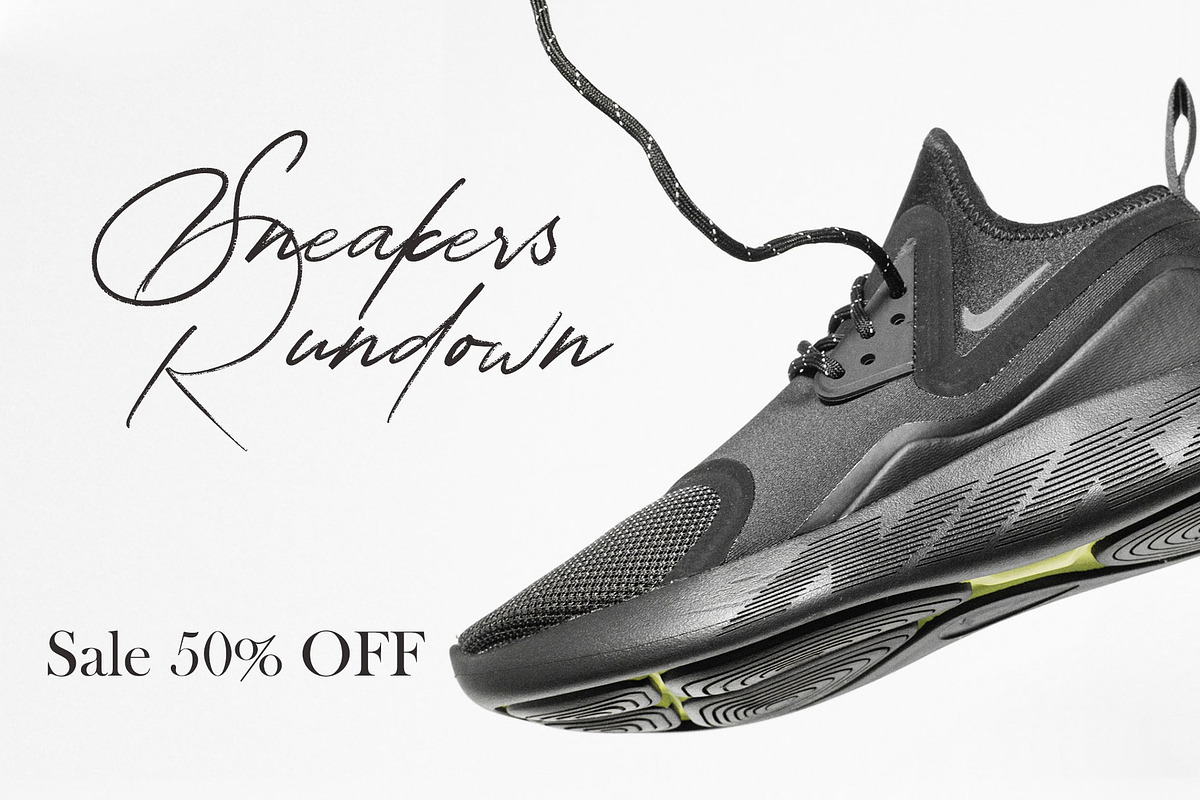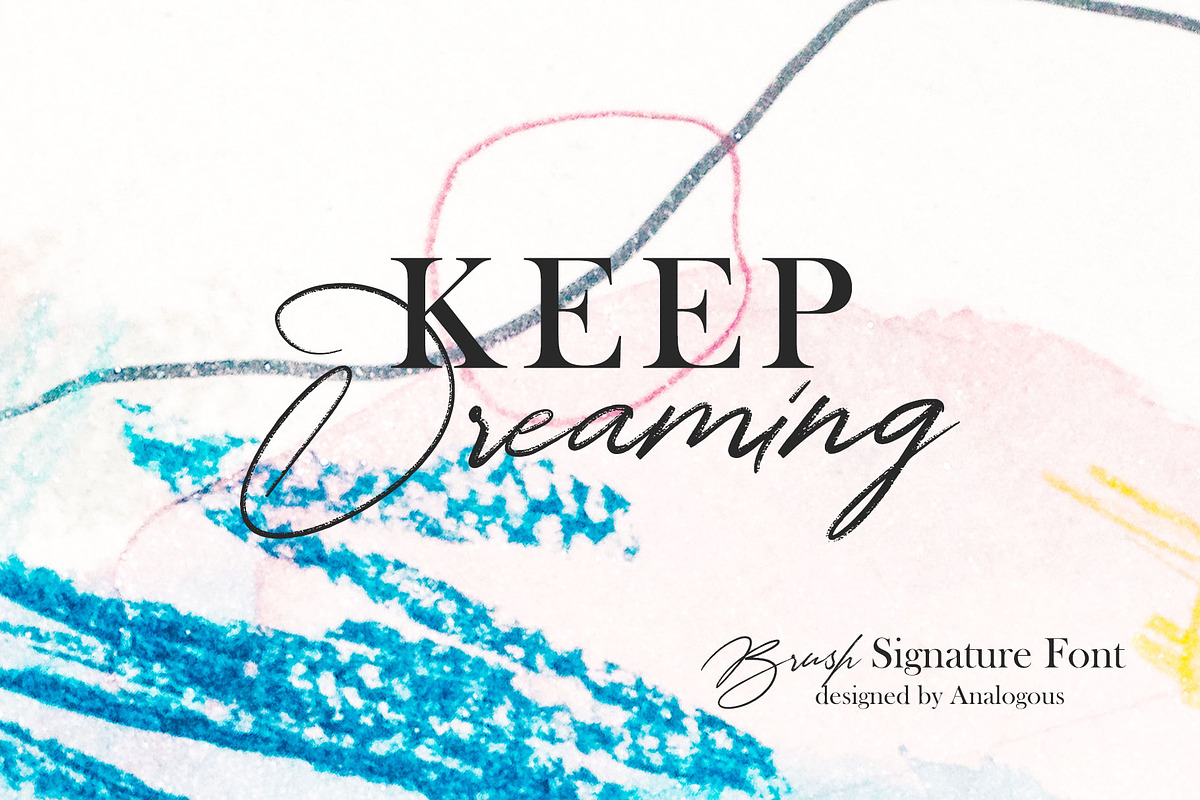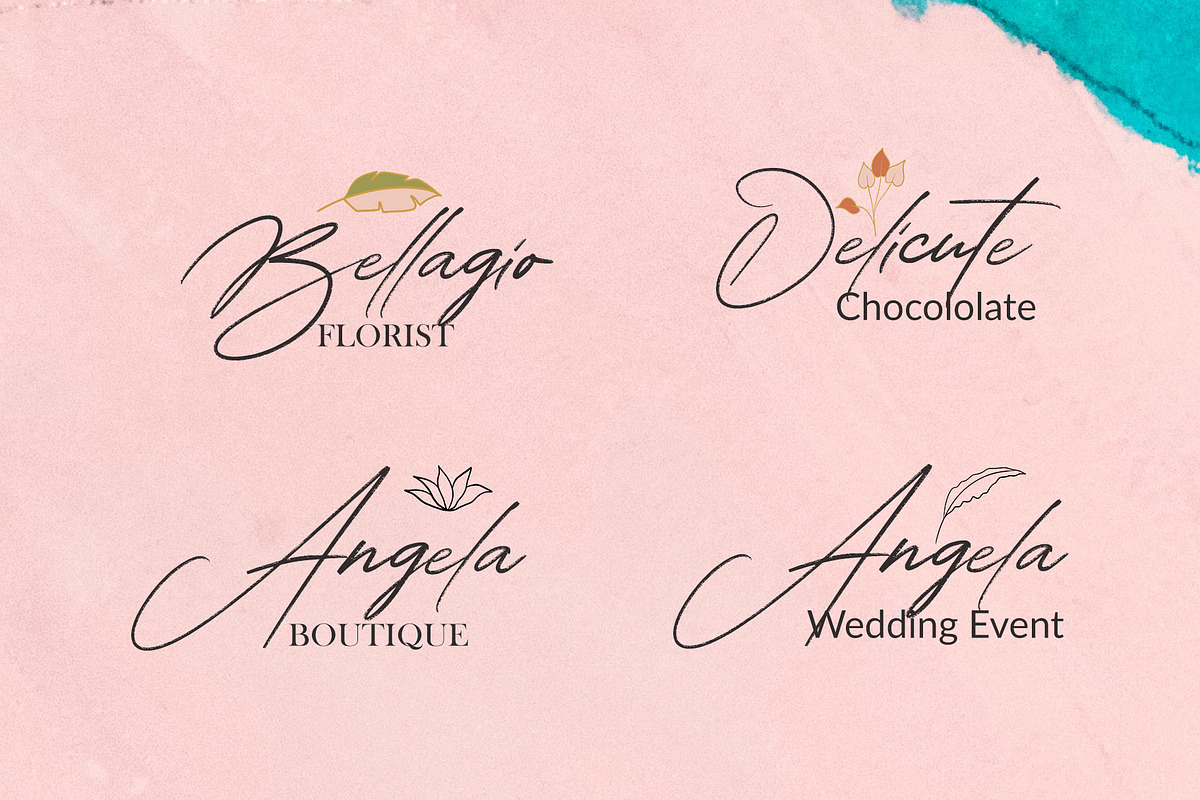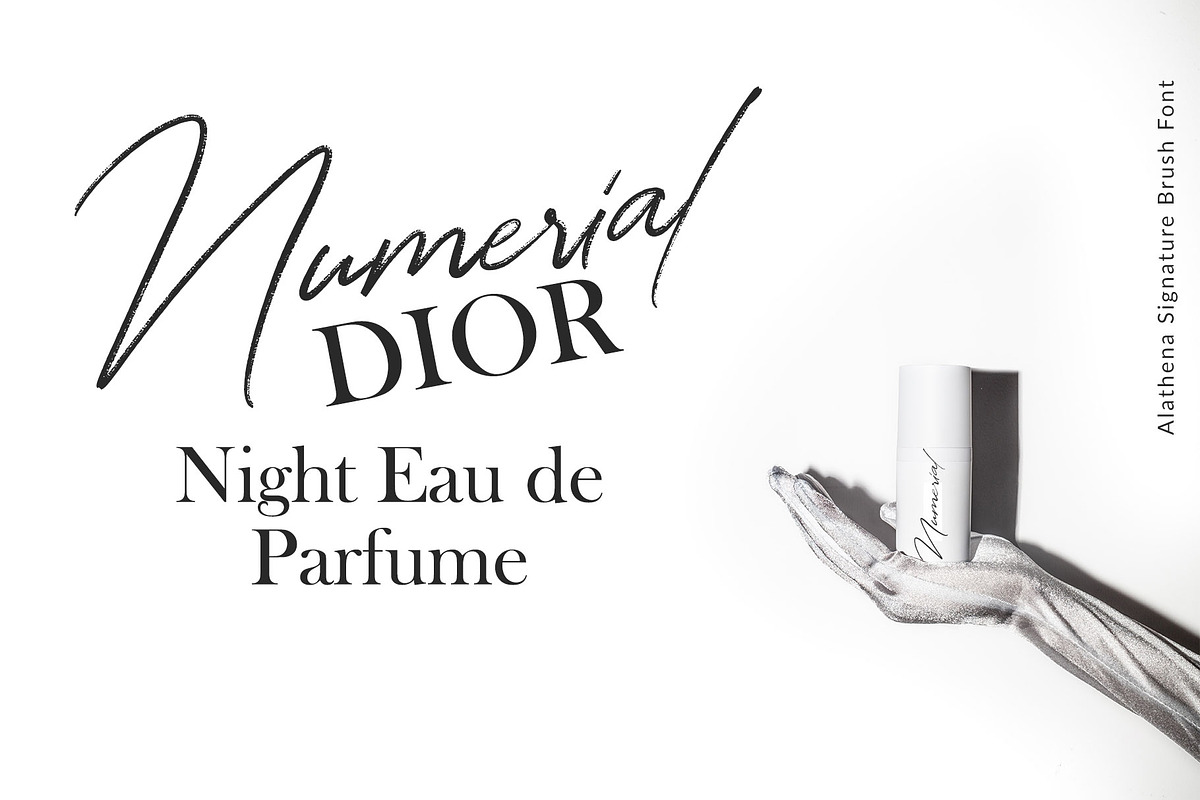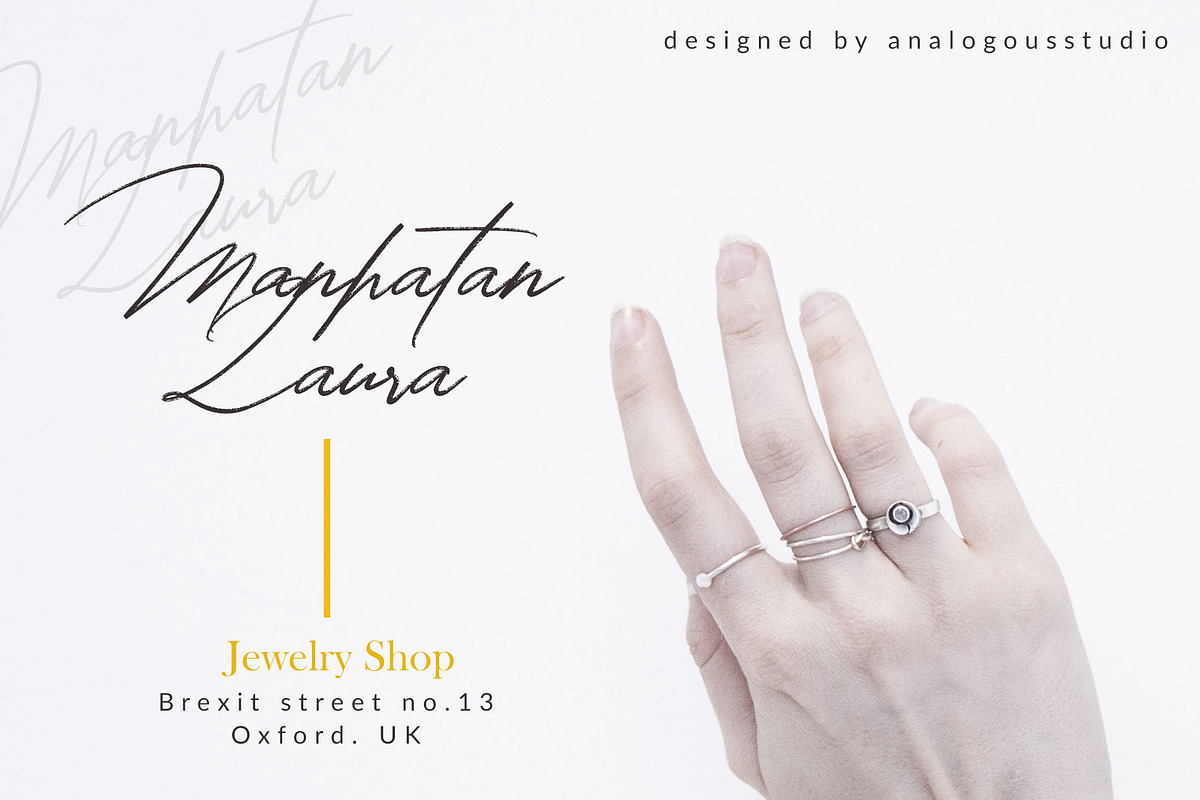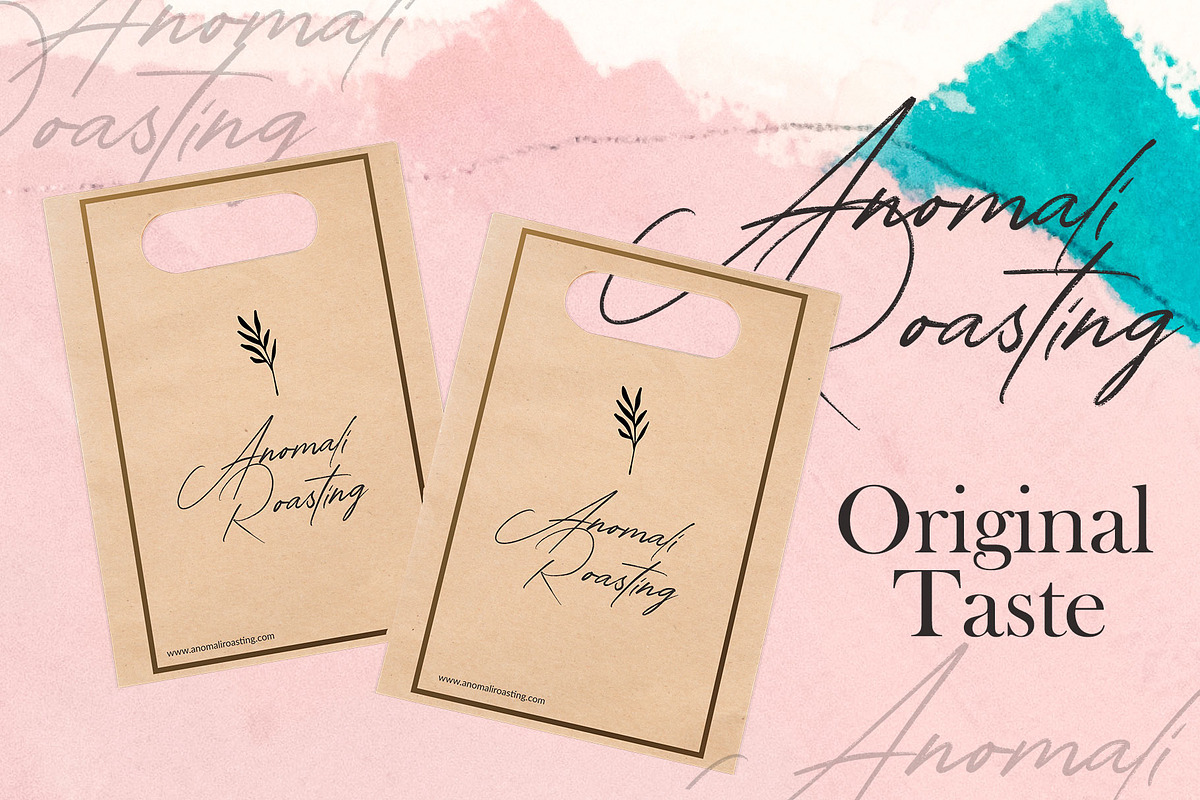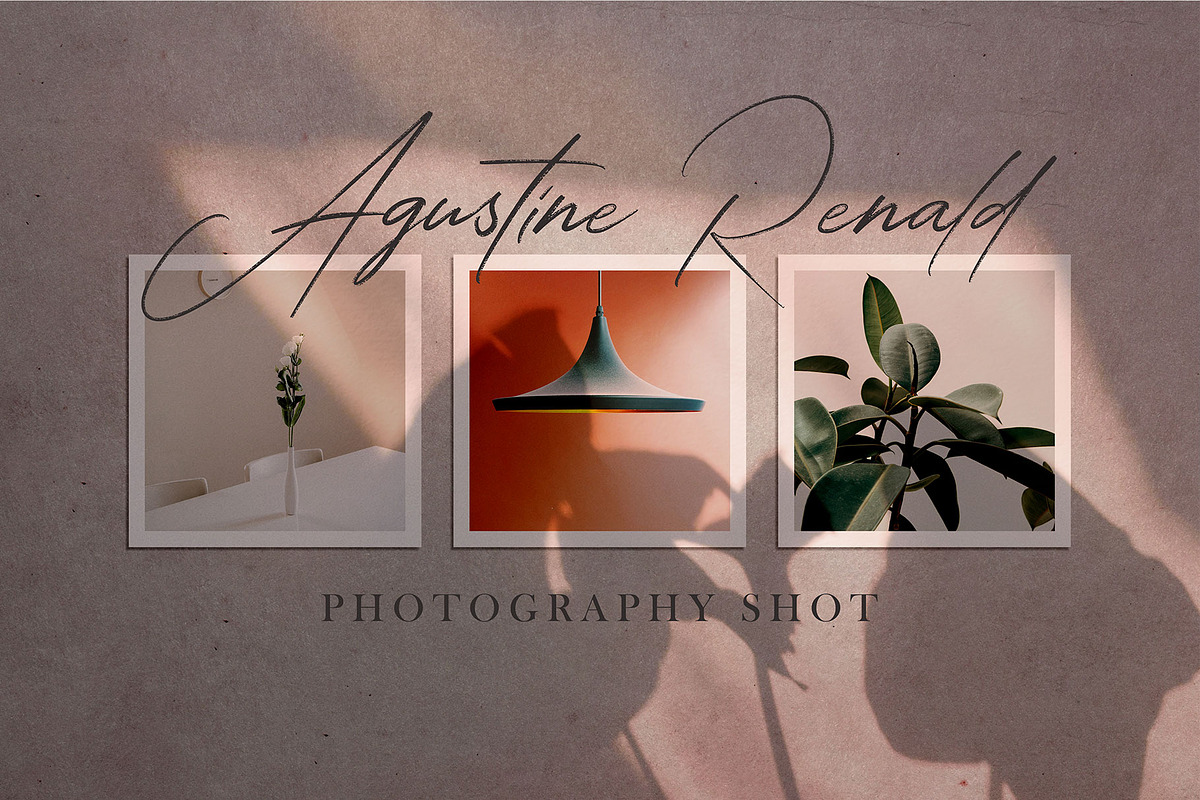
Alathena Signature Font
We introduce our new product called Alathena Signature Brush
Alathena Signature Brush is a signature brush font that you can use to make a design. This is perfect for BRANDING,funny logos with this font and poster headline, magazines, book titles, business cards, beautiful fashion designs, advertisements, product designs, wedding invitation, signature or handwritten quote.
Alathena Signature Brush also includes full set of uppercase and lowercase letters, multilingual symbols, numerals, punctuation. The font has brush wet ink texture, so would be perfect for all types of printing techniques+you can do embroidery, gold foil etc.
Languages supported: Breton, Catalan, Czech, Danish, Estonian,French, German, Hungarian, Icelandic, Italian, Romanian, Scottish Gaelic, Slovak, Latvian, Lithuanian, Norwegian, English, Finnish, Polish, Portuguese, Slovenian, Spanish, Swedish, Turkish, Welsh. Basically, all european languages that are based on latin alphabet.
Why Alathena Signature Font is worth a look
Alathena Signature Font by Analogous fits naturally into Branding, posters, packaging, typography.